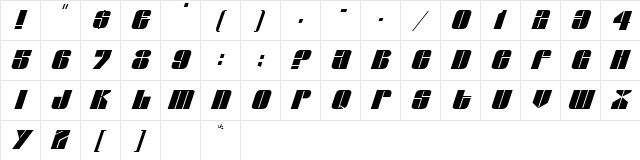
GlaserItalic Normal
Design Context for GlaserItalic Typeface
GlaserItalic is a composed and adaptable typeface that performs quietly and consistently across a wide range of design contexts. Its italic angle brings a sense of urgency and motion to the letterforms.
Pro Tip: Try GlaserItalic for annotation and caption copy alongside an upright companion — the contrast in angle creates a dynamic but ordered typographic system.